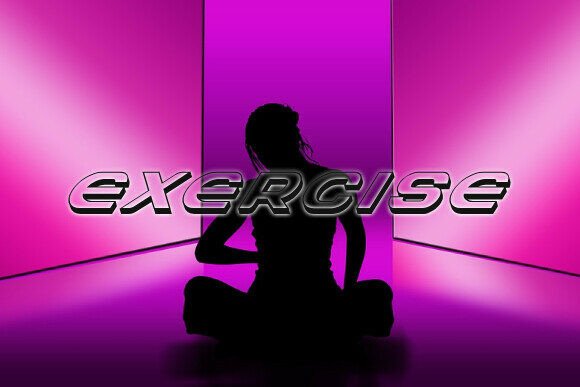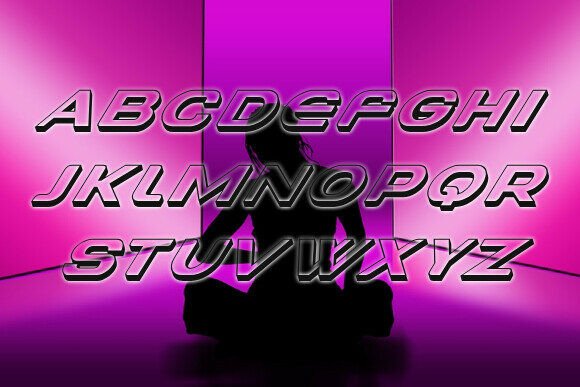
Discover the Energetic World of Aerobics Font
I’ll never forget the time I was working on a fitness branding project, tasked with creating an eye-catching poster that would make people want to hit the gym. The problem was, I was struggling to find the right font that could convey the energy and dynamism I needed. That’s when I stumbled upon Aerobics Font, and it completely transformed my design. In this article, I’ll share my experience with this bold and futuristic display font, and explore its features, uses, and alternatives.
A Personal Review of Aerobics Font
So, what makes Aerobics Font so special? Here are some things I love about it:
- ✨ Bold and futuristic design: The italicized, forward-slanting structure gives a sense of speed and dynamism, making it perfect for projects that need to radiate strength, activity, and modern style.
- ✅ Sleek, metallic-inspired finish: Each letter is crafted with a sleek, metallic-inspired finish that enhances its sporty and contemporary appeal.
- 🔥 Perfect for large-scale displays: The font is composed of all-uppercase letters, emphasizing impact and legibility in large-scale displays.
However, there are a few small quirks to be aware of:
- 🤔 Limited use in body text: Due to its bold and italicized design, Aerobics Font may not be suitable for body text or long paragraphs.
- ⚠️ Glyph limitations: Some users have reported that the font could benefit from more glyphs and special characters.
The Design Story Behind Aerobics Font
Aerobics Font was designed with the goal of capturing the energy and rhythm of movement. Its creator, a renowned type designer, was inspired by the world of fitness and sports, and sought to create a font that would embody the dynamism and strength of these industries. The result is a bold, futuristic font that is perfect for projects that need to radiate energy and modern style.
| What is Aerobics Font? | Aerobics Font is a bold and futuristic display font designed to capture the energy and rhythm of movement. |
| What is Aerobics Font best used for? | Aerobics Font is best used for projects that need to radiate strength, activity, and modern style, such as fitness branding, event posters, digital ads, and retro-futuristic design themes. |
| Can I use Aerobics Font for body text? | No, Aerobics Font is not recommended for body text due to its bold and italicized design. |
| Does Aerobics Font support OpenType features? | Yes, Aerobics Font supports OpenType features, including glyphs and stylistic alternates. |